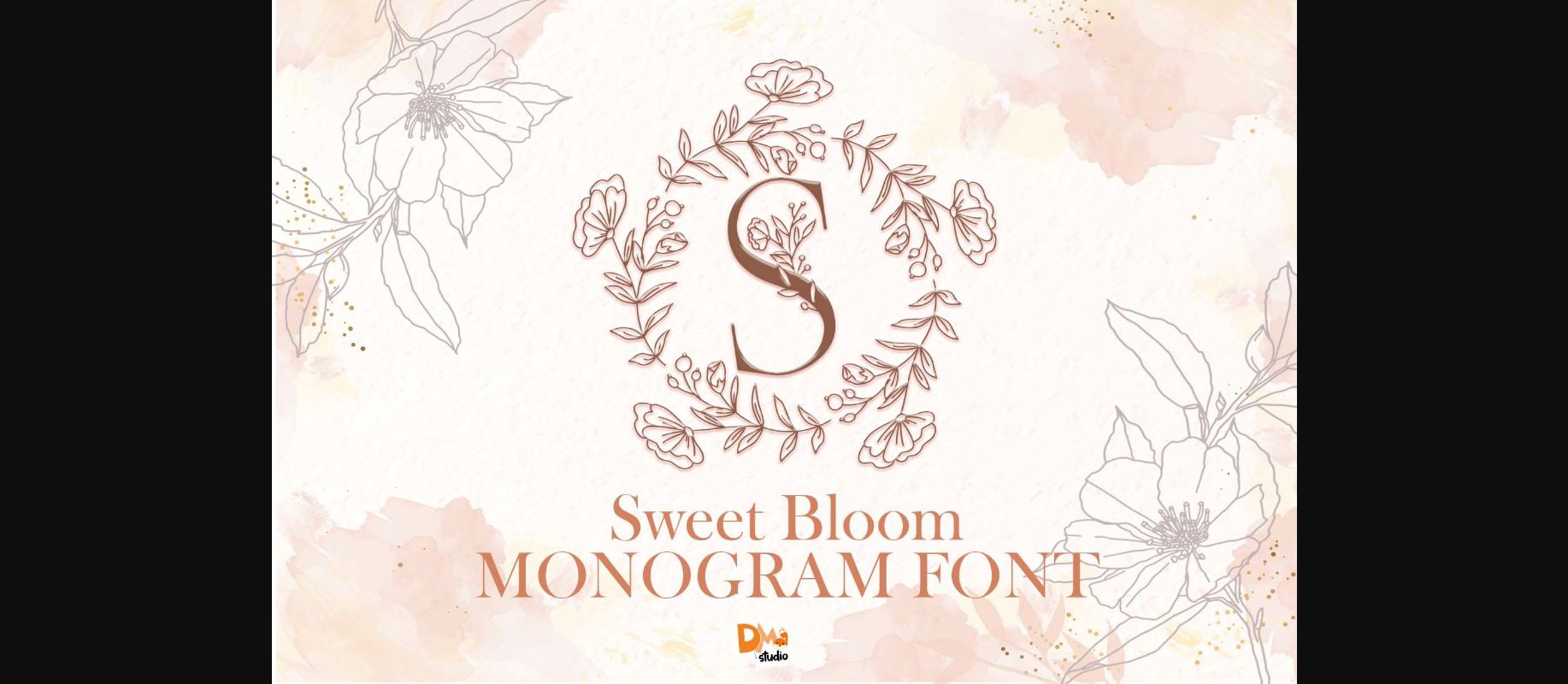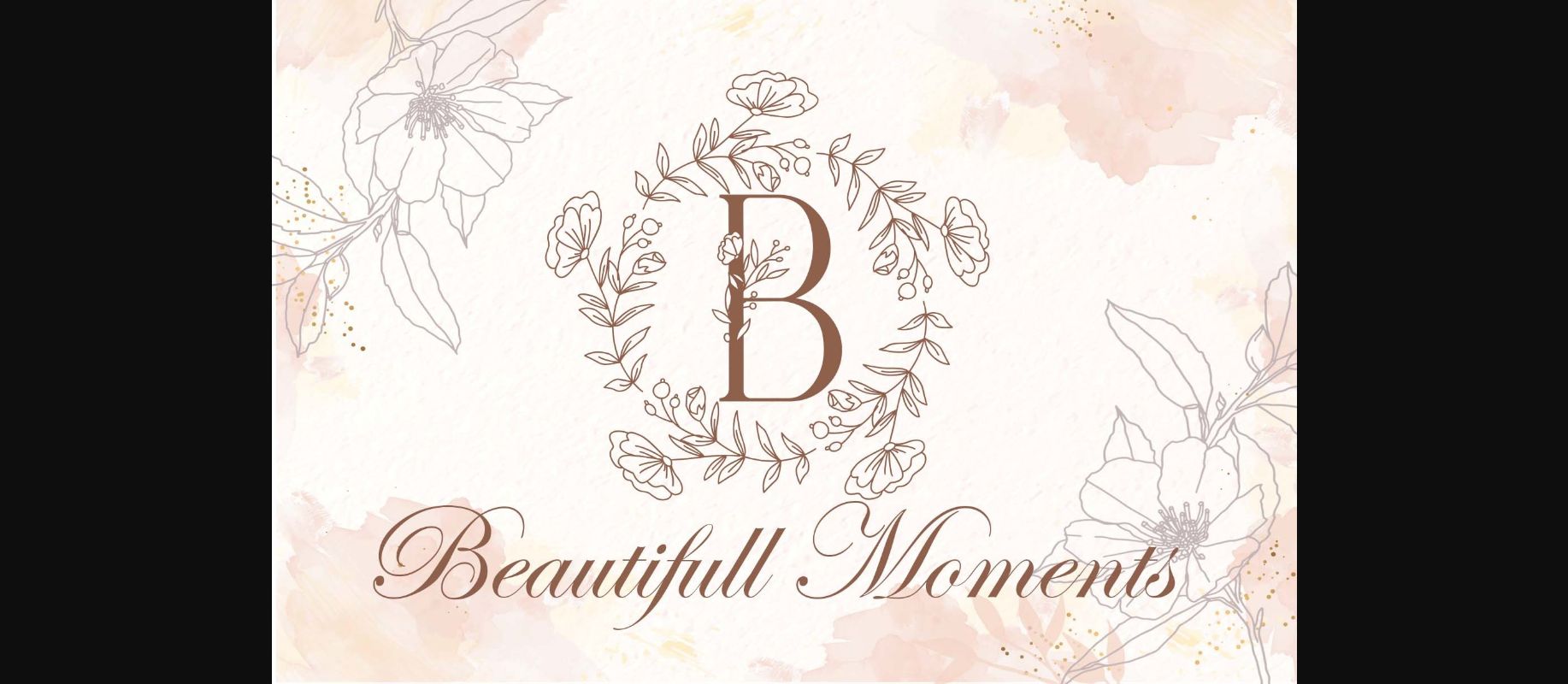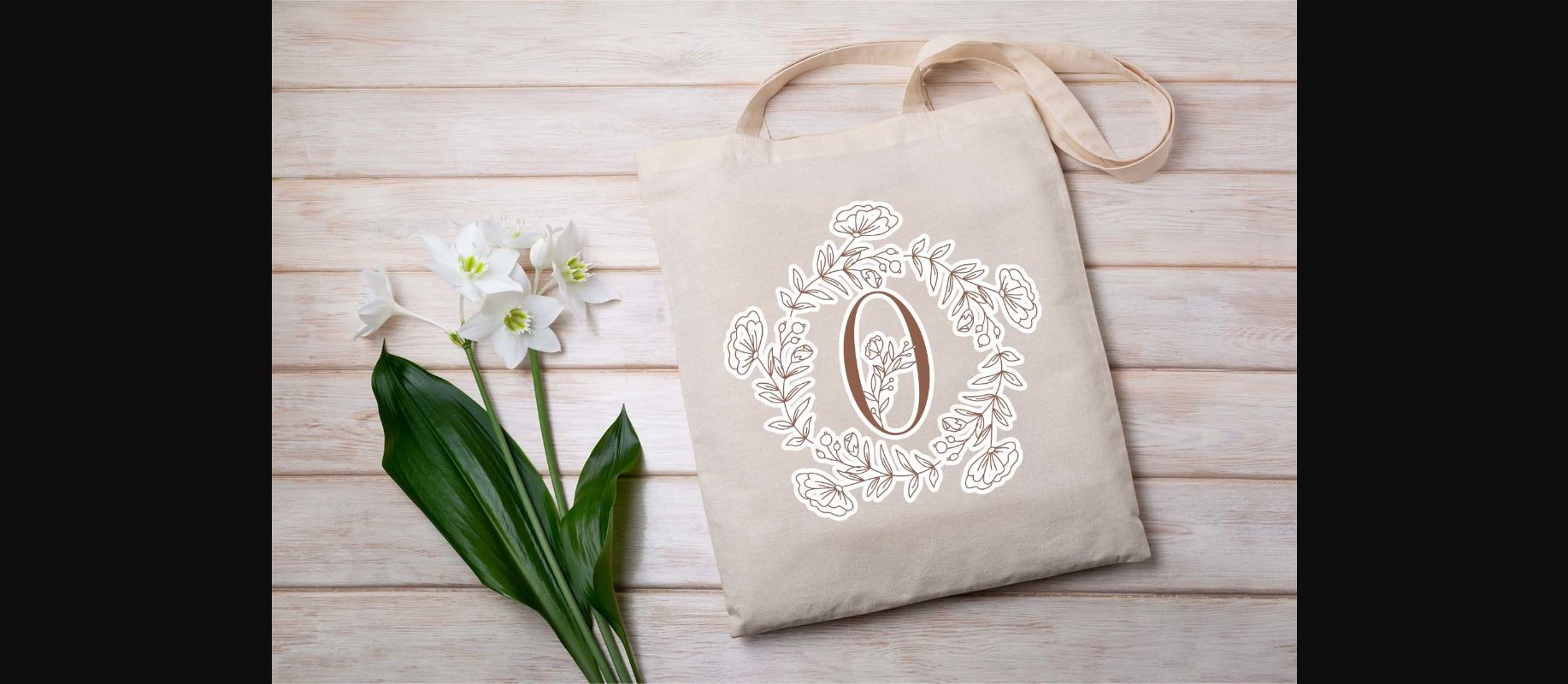
About Sweet Bloom Monogram Font
Sweet Bloom Monogram is a lovely, elegant and unique decorative font. Fall for its ravishing style and use it to create gorgeous wedding invitations, beautiful stationary art, eye-catching social media posts, and much more!